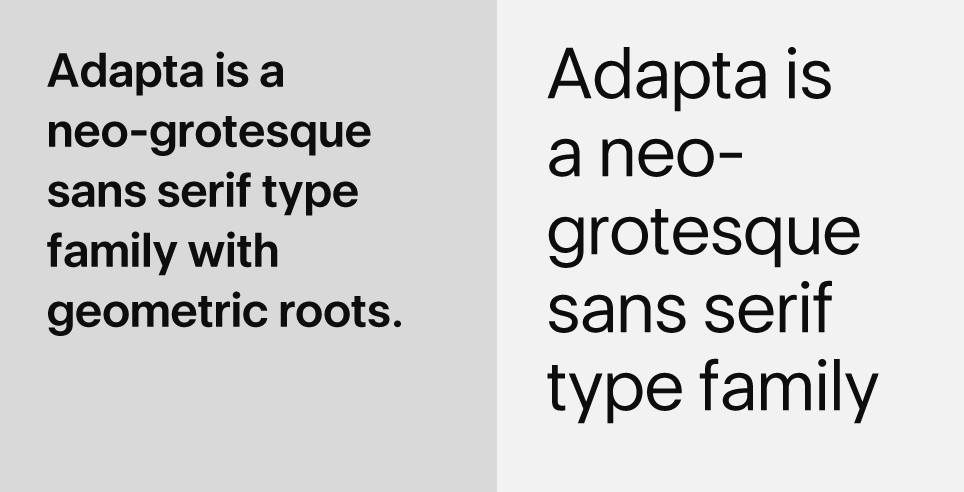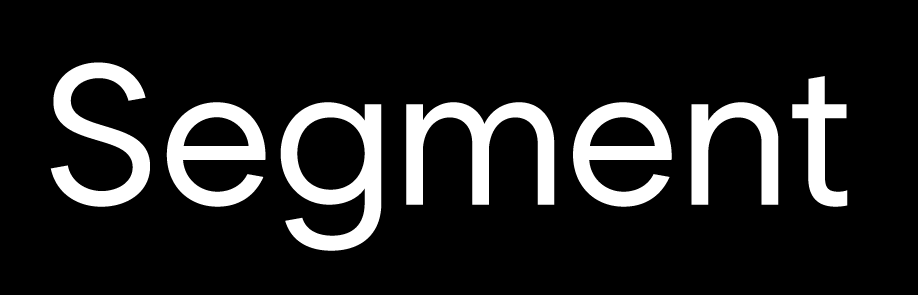
Typekiln [Krishna Kireeti]
Indian type foundry, est. 2020. In 2020, Typekiln released the 18-style geometric typeface family Segment and the 34-style neo-grotesque family Adapta (Display, Text). Adapta was renamed Eloquia in 2021.